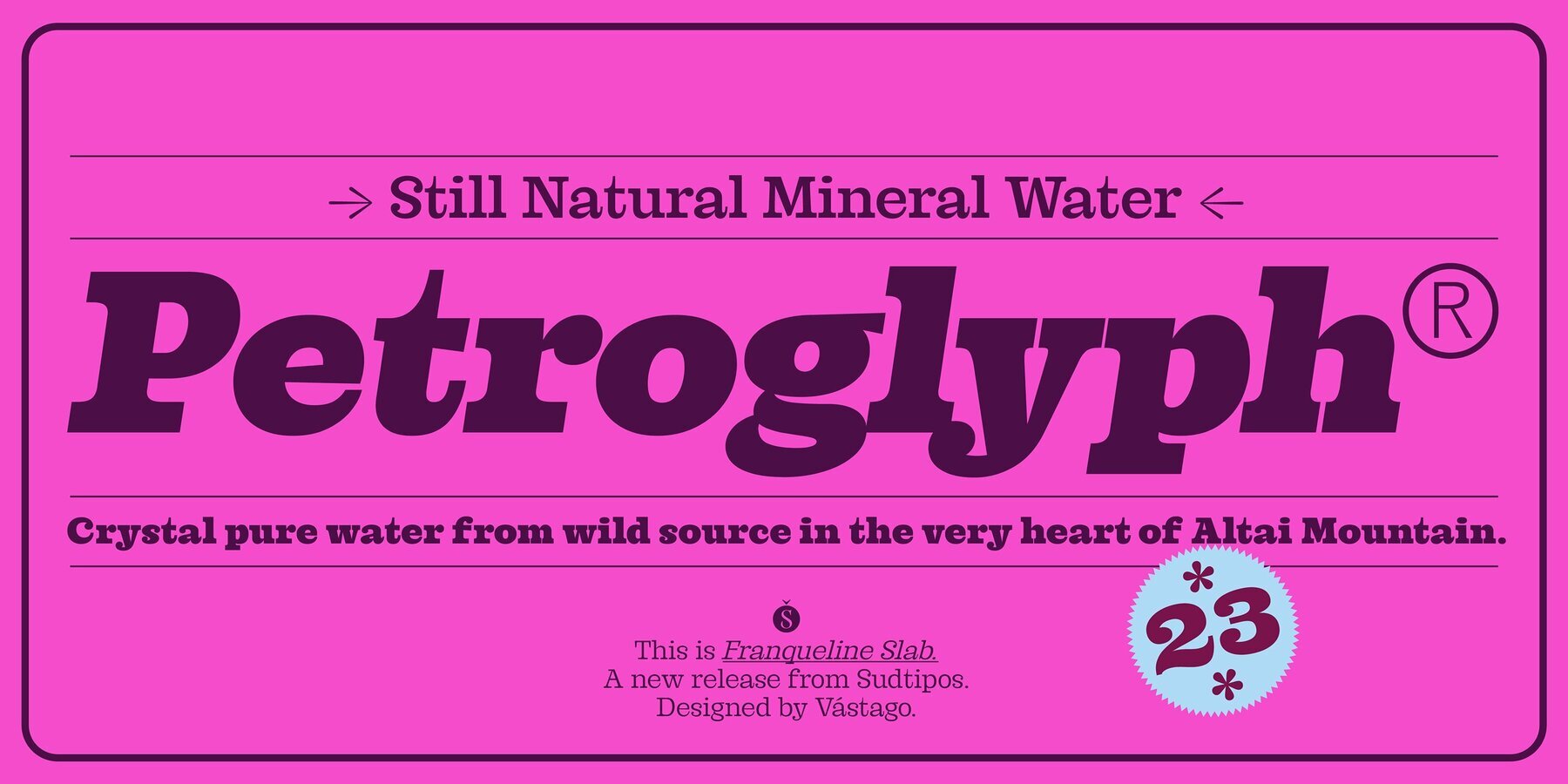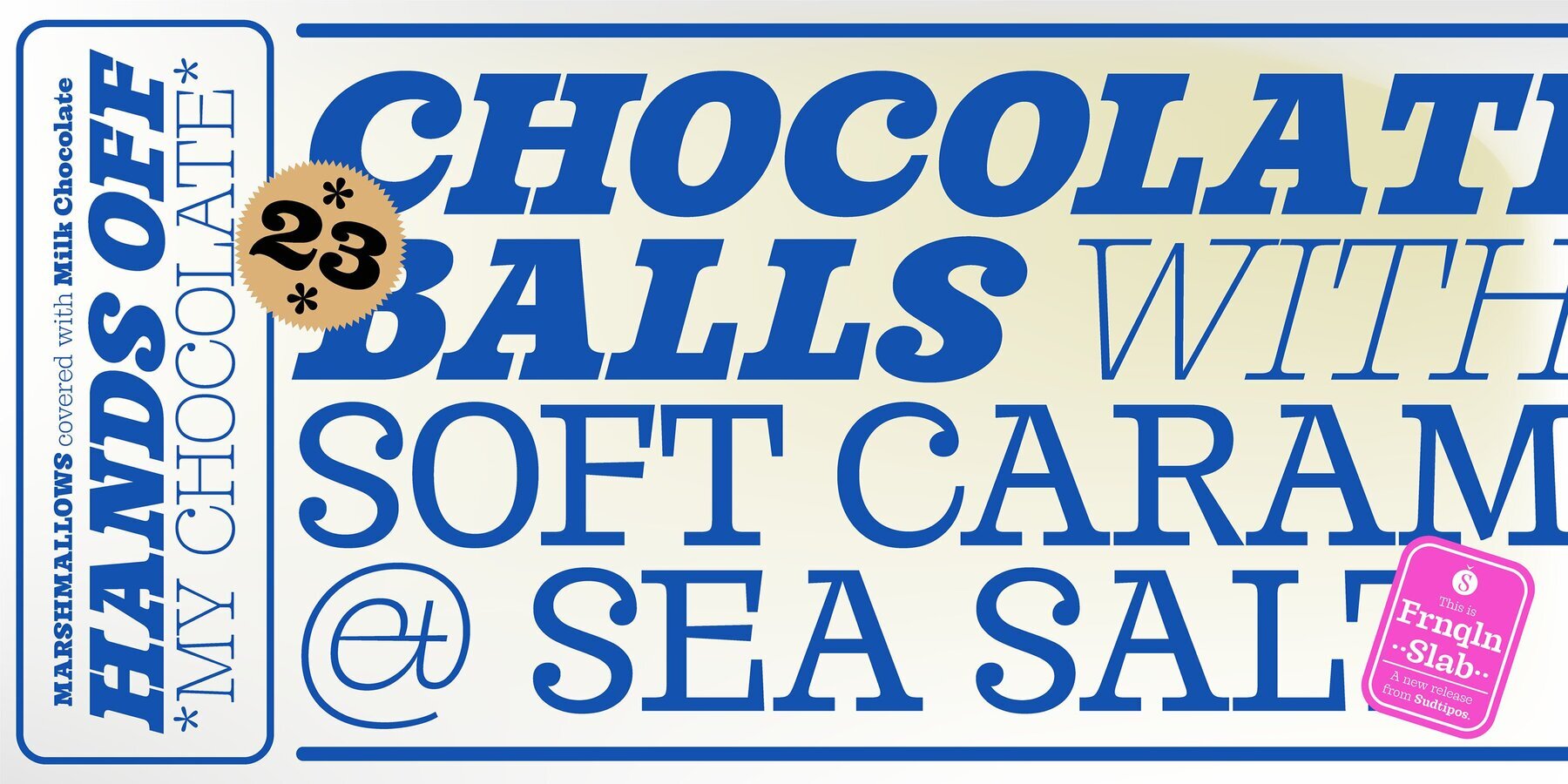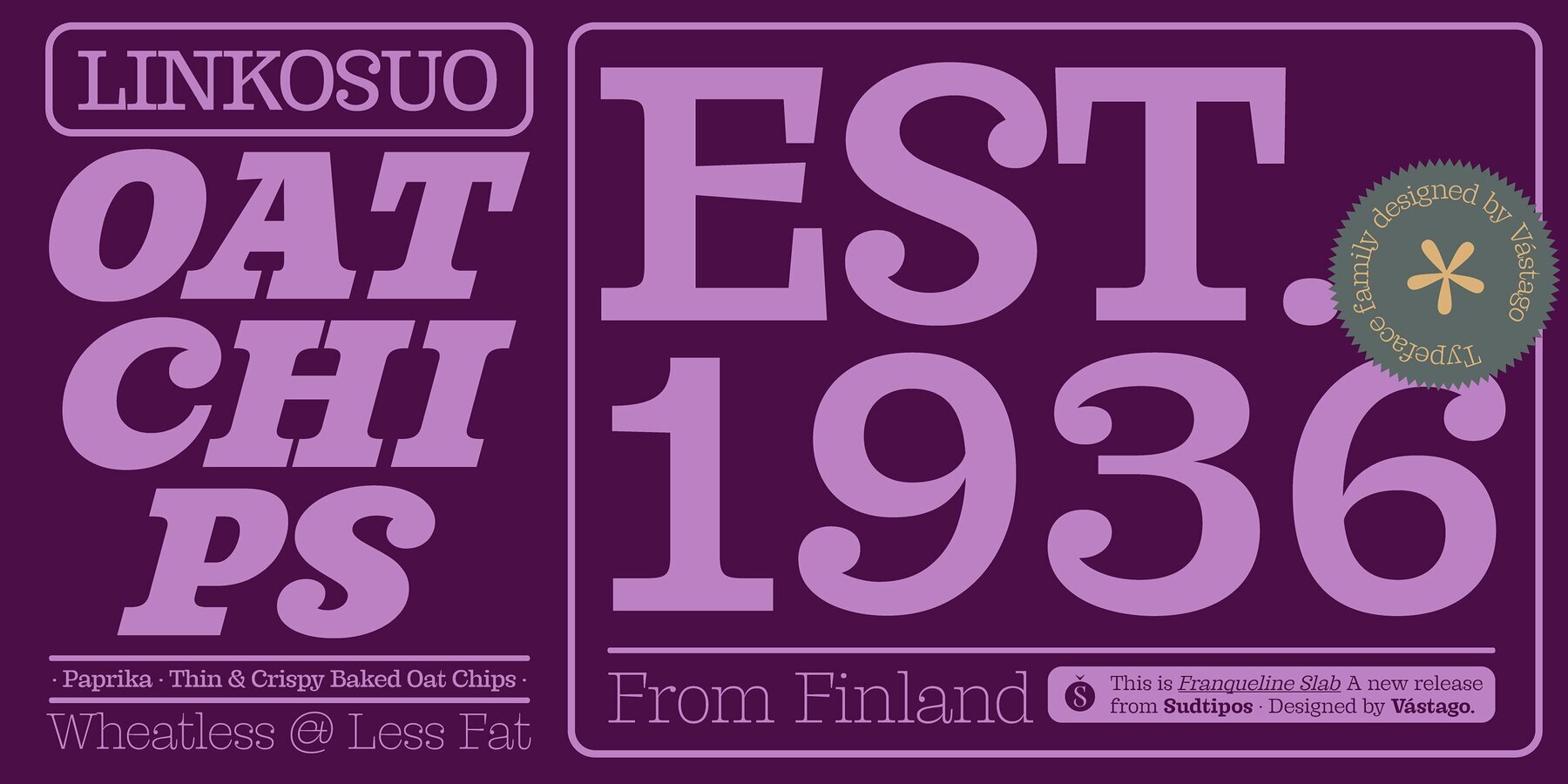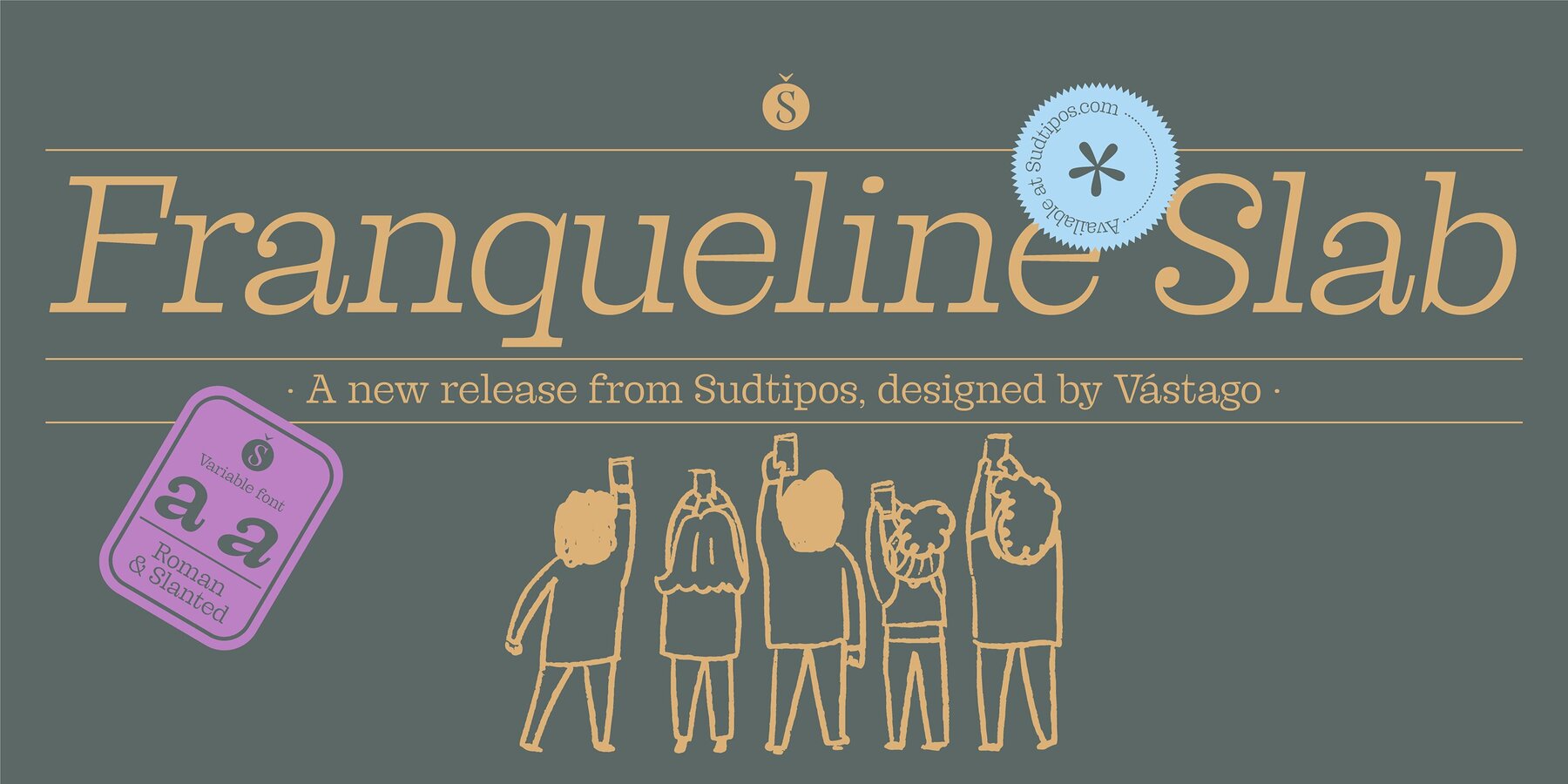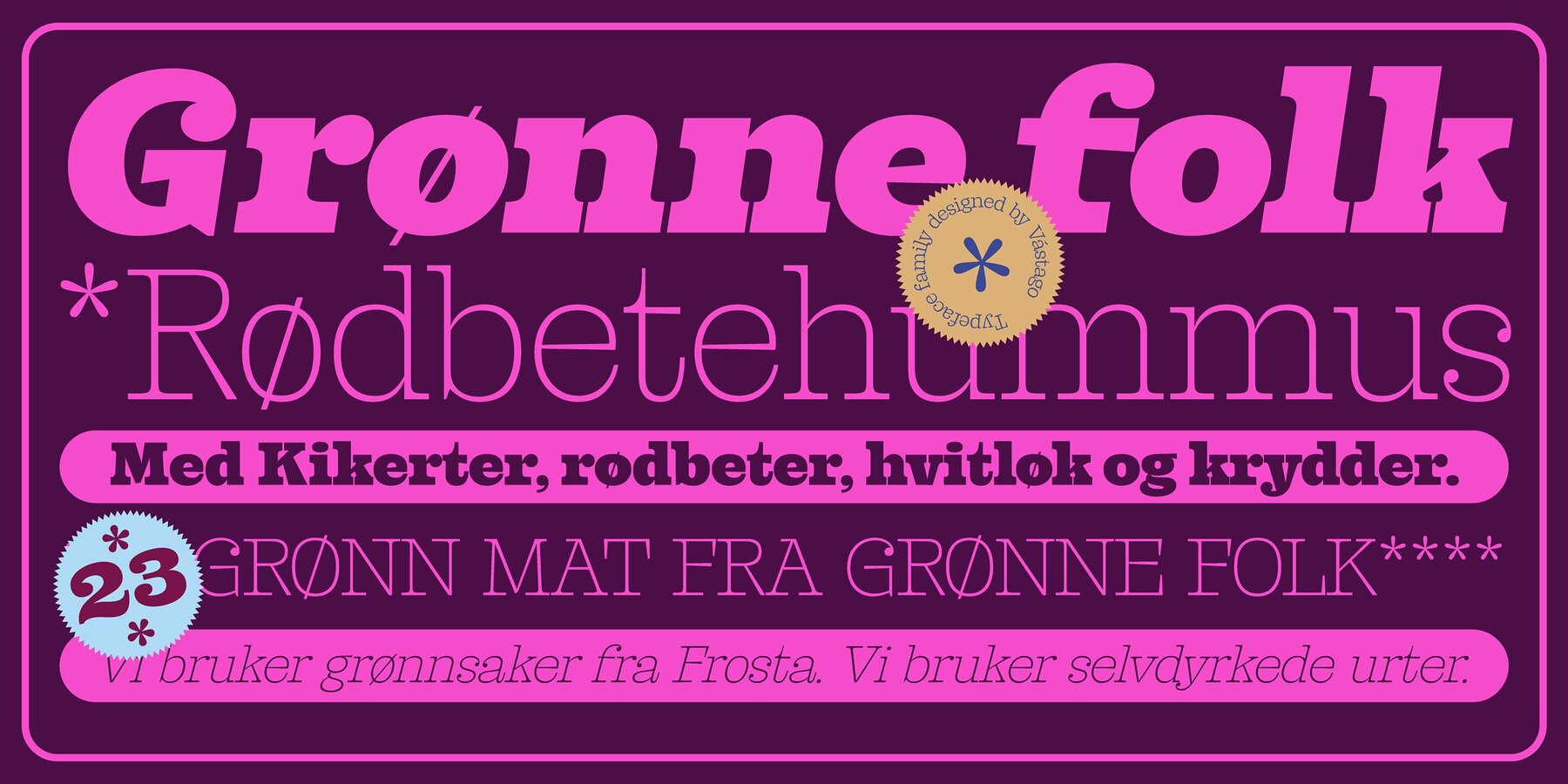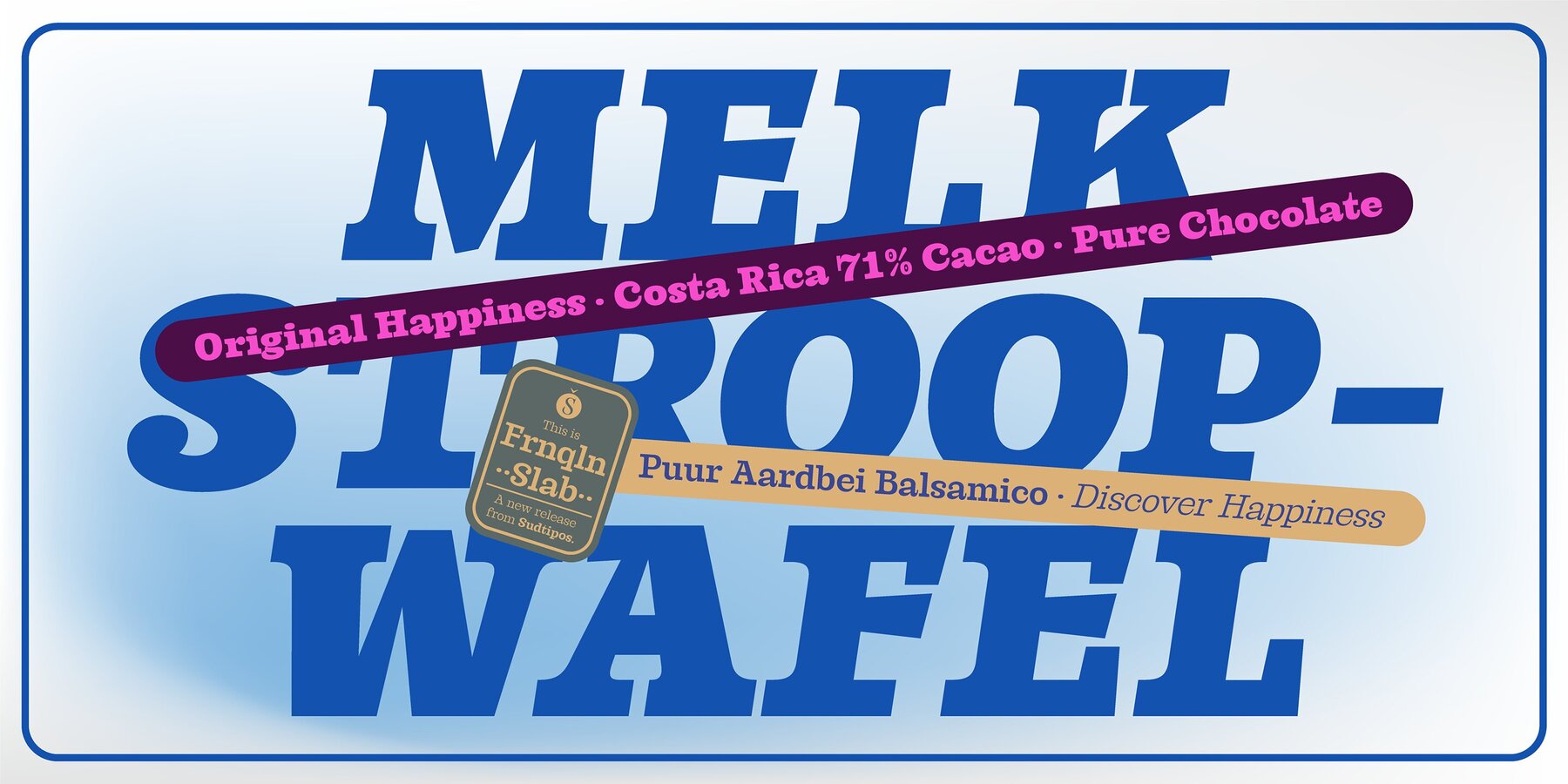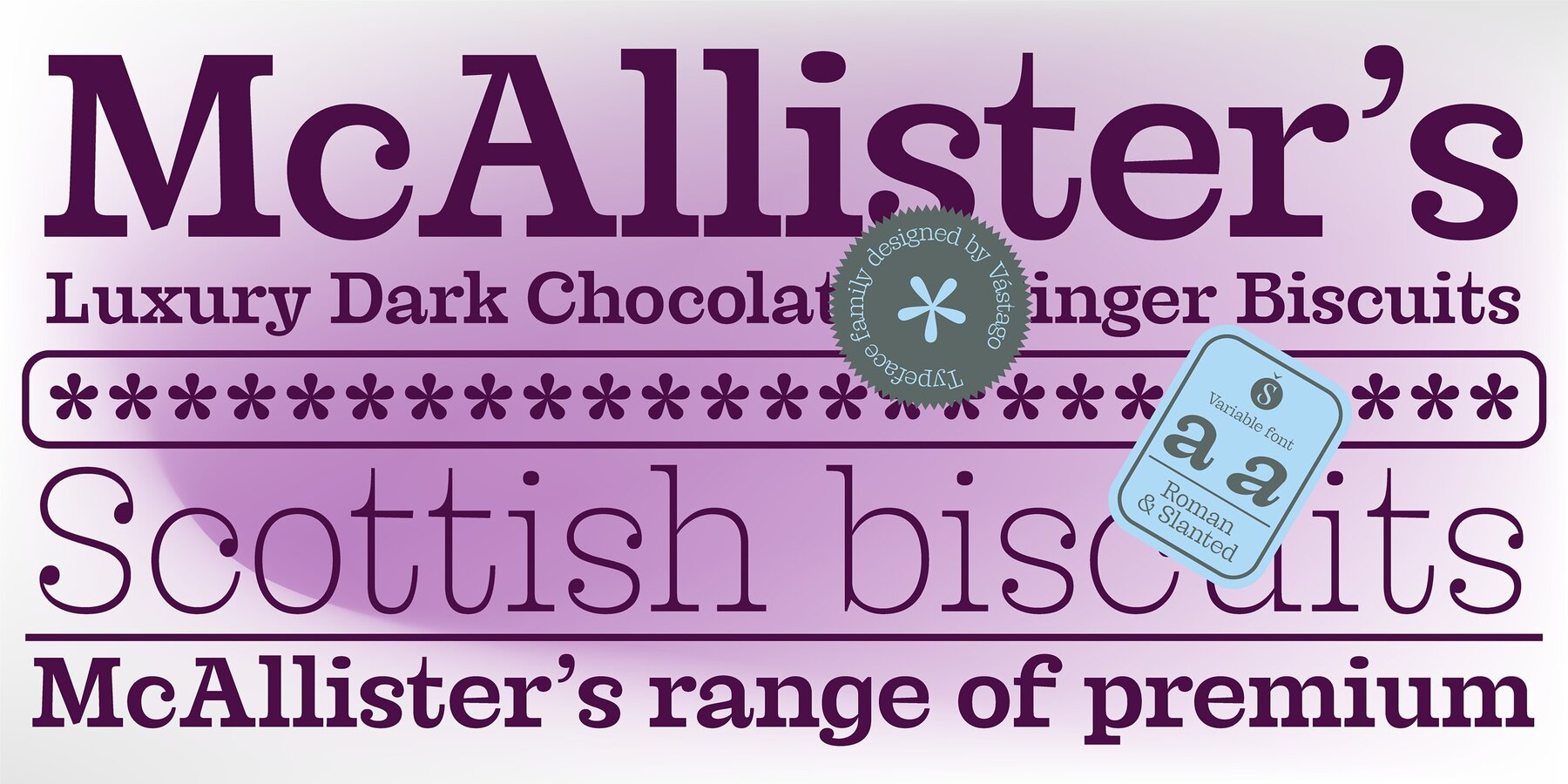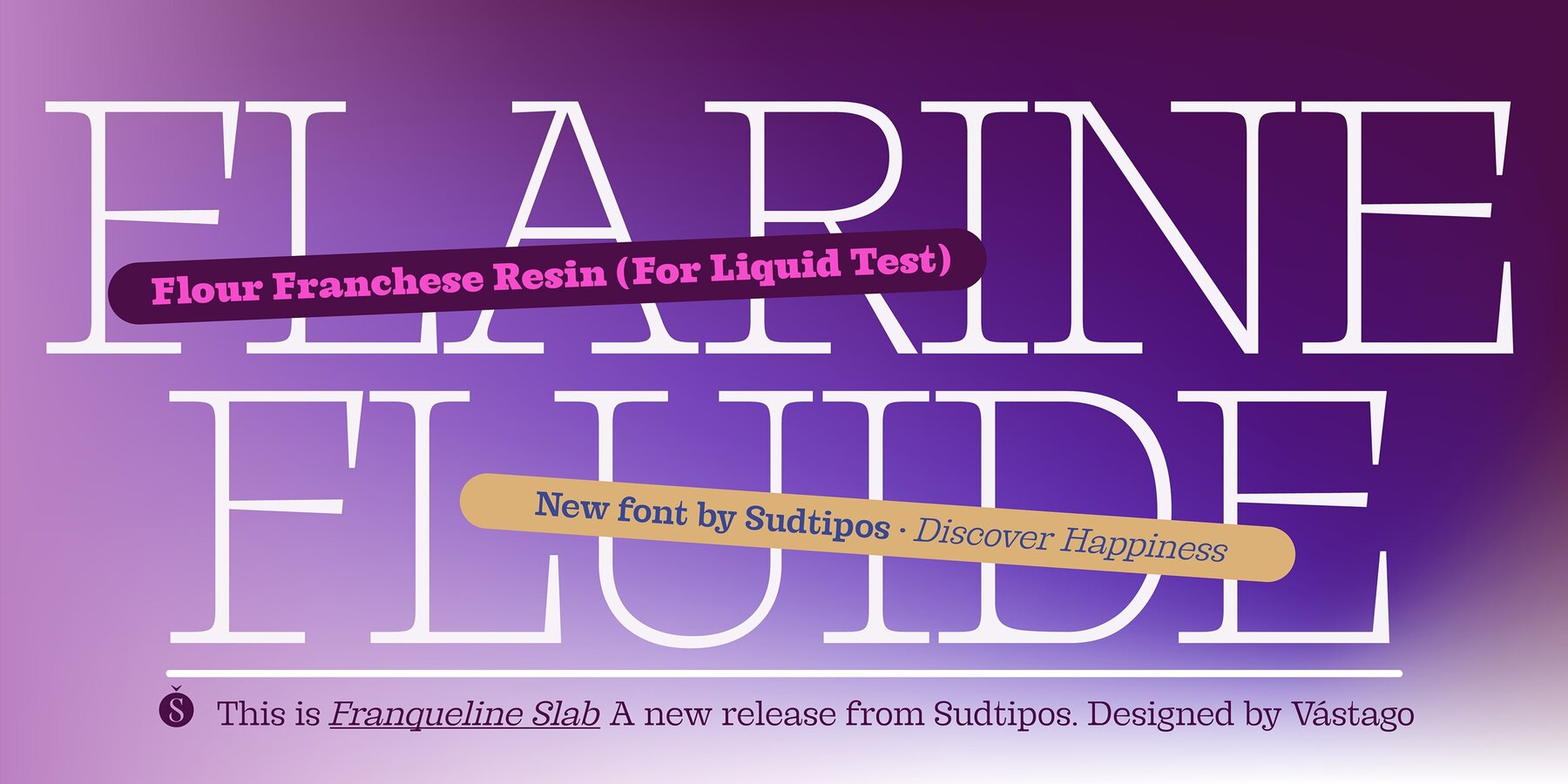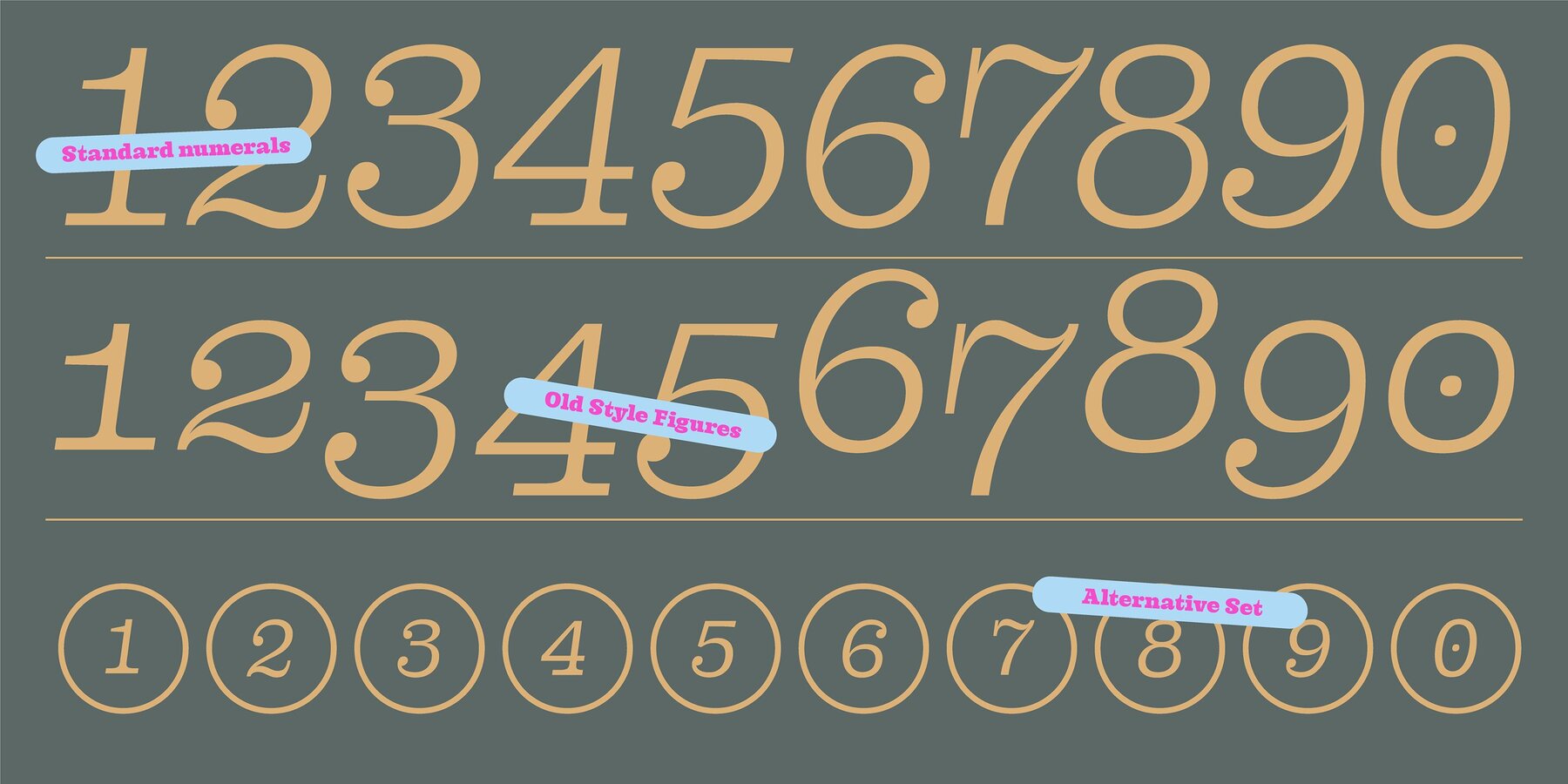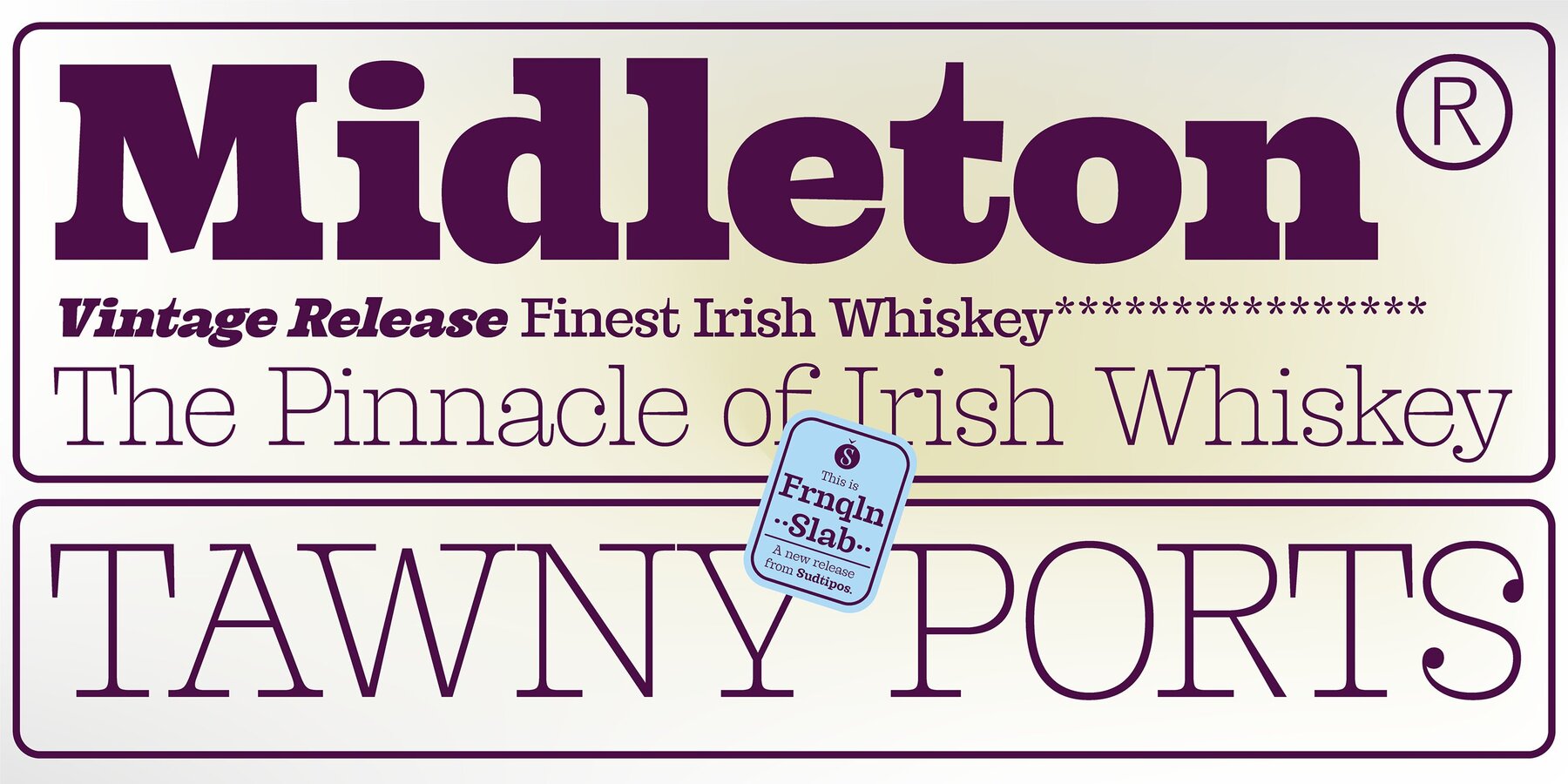
Franqueline Slab Font
Introducing Franqueline Slab, the captivating new typeface family passionately designed by Estudio Vástago and expertly distributed by Sudtipos! This versatile font offers a diverse array of styles, ranging from delicately refined to boldly eye-catching on the weight axis, all elegantly inspired by the timeless Egyptian fonts of the late 19th century. With expressive character and exquisitely unique shapes, Franqueline Slab harmoniously blends the finesse of its delicate strokes with sophisticated endings, resulting in a truly remarkable typography. Every letter in Franqueline Slab has been meticulously crafted to strike the perfect balance between a contemporary edge and a touch of traditional charm, appealing to both the younger generation and typography enthusiasts who appreciate the artistry of the past. Its adaptability makes it ideal for captivating headlines that convey a message of youthful energy and playfulness, while still exuding the timeless elegance that only classic fonts can deliver. Embrace distinction and originality in your designs with Franqueline Slab. Whether it graces an editorial project, logo, or advertising material, this exceptional typeface family will undoubtedly stand out, leaving a lasting impression with its captivating personality. Watch your messages come to life and shine with the unparalleled charm of Franqueline Slab!